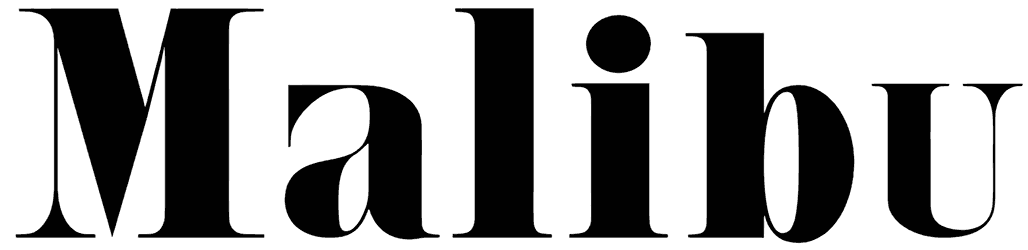
Malibu Font
Every serif font will give a kind of serious and formal makeover to your words, but this one is also accompanied by a kind of upbeat aura. Malibu has a bold character design that is a classic in the world of fonts. It can be used for any news texts or headlines, movie posters, formal events, or channel banners, or novel titles.